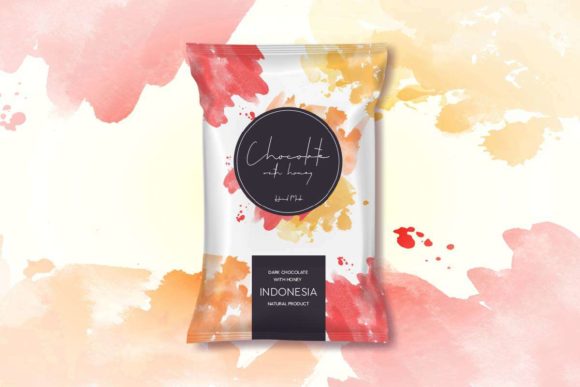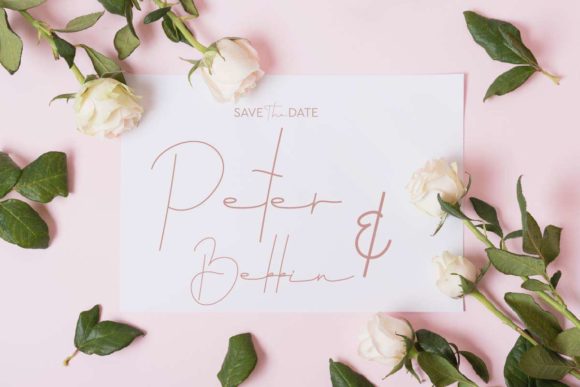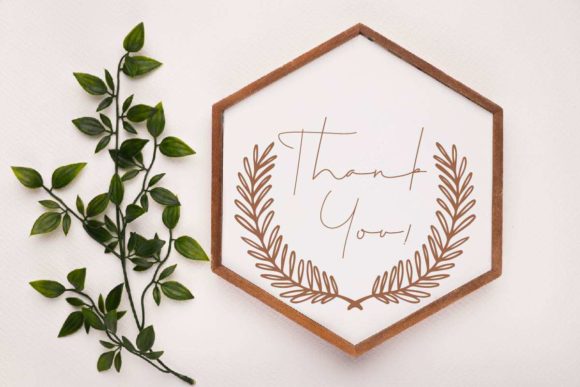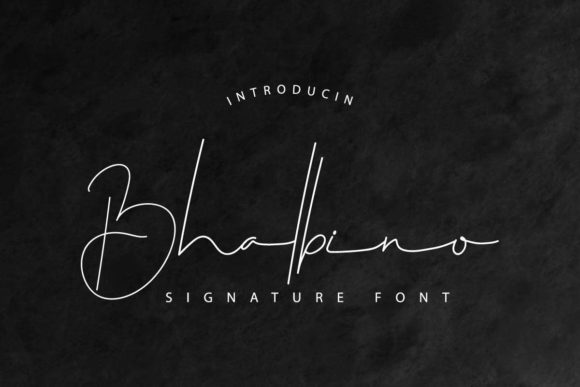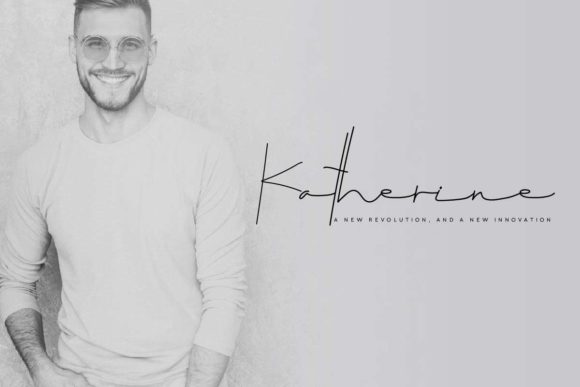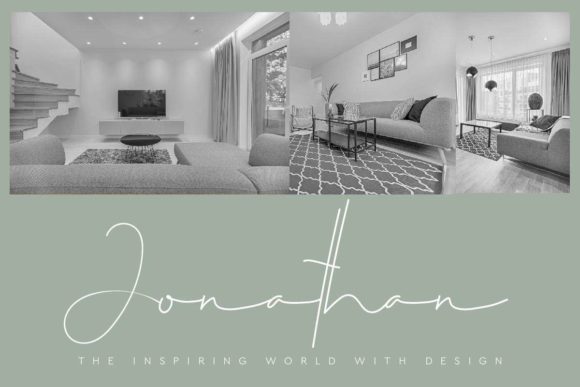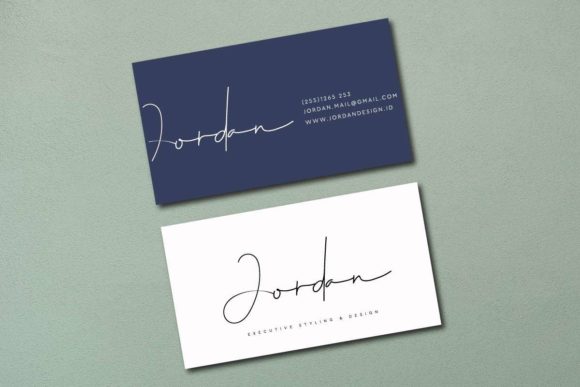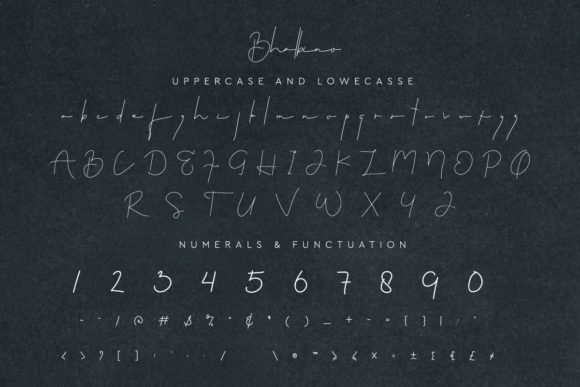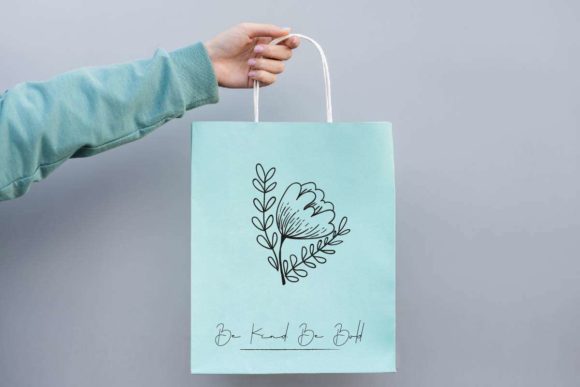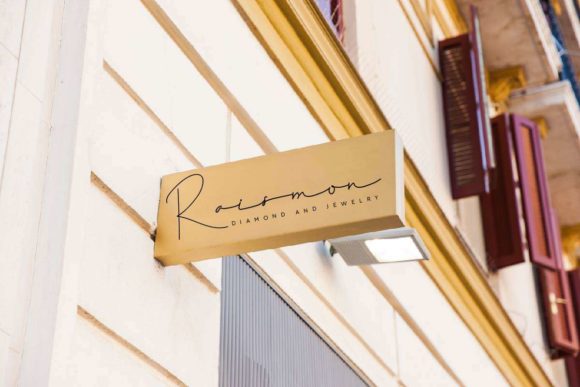
Bhalbino Font
About Bhalbino Font
Bhalbino simplifies elegance into one truly outstanding script font. Get inspired by its modern feel and use it to create gorgeous wedding invitations, beautiful stationary art, eye-catching social media posts, and cute greeting cards.